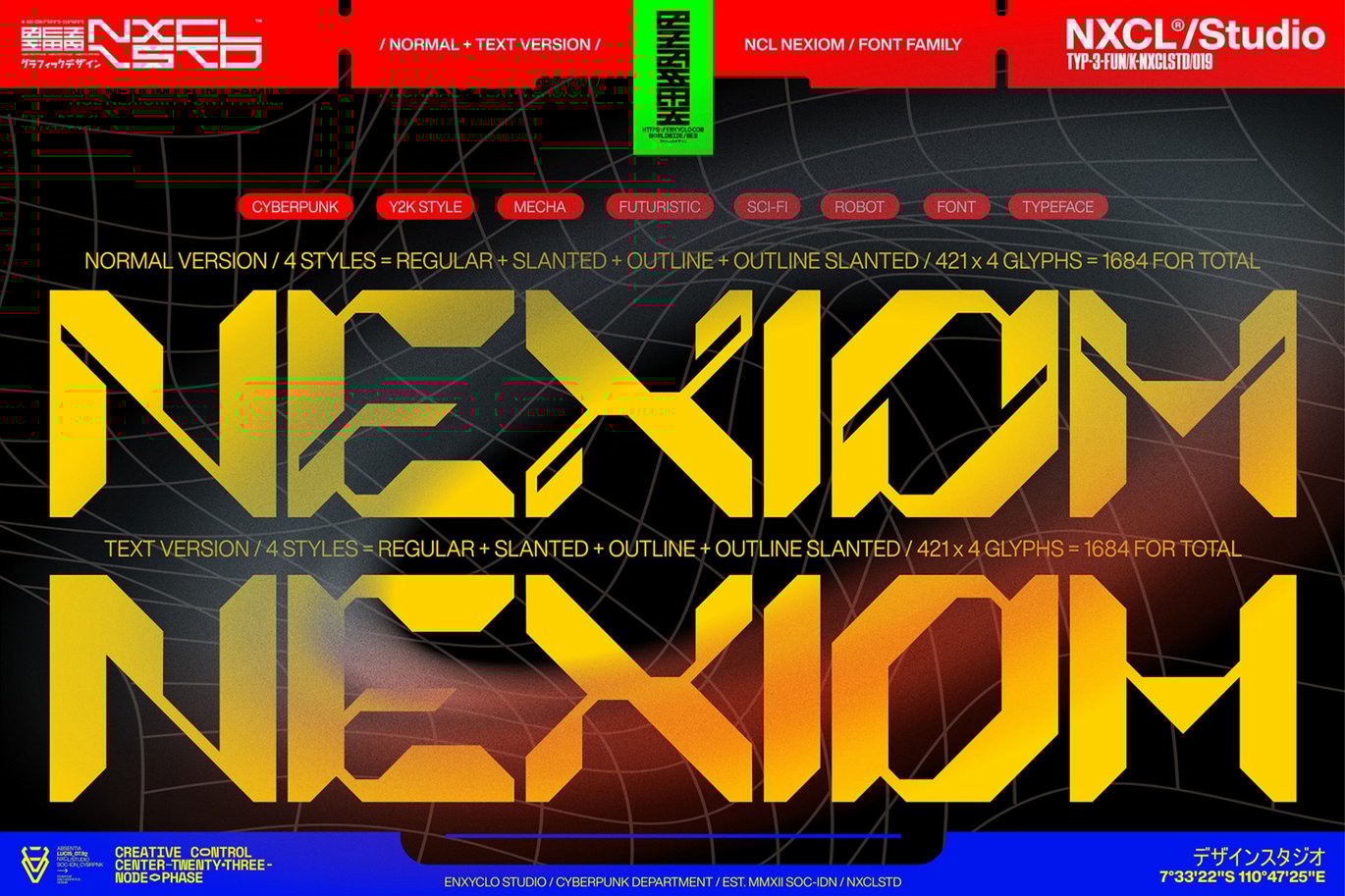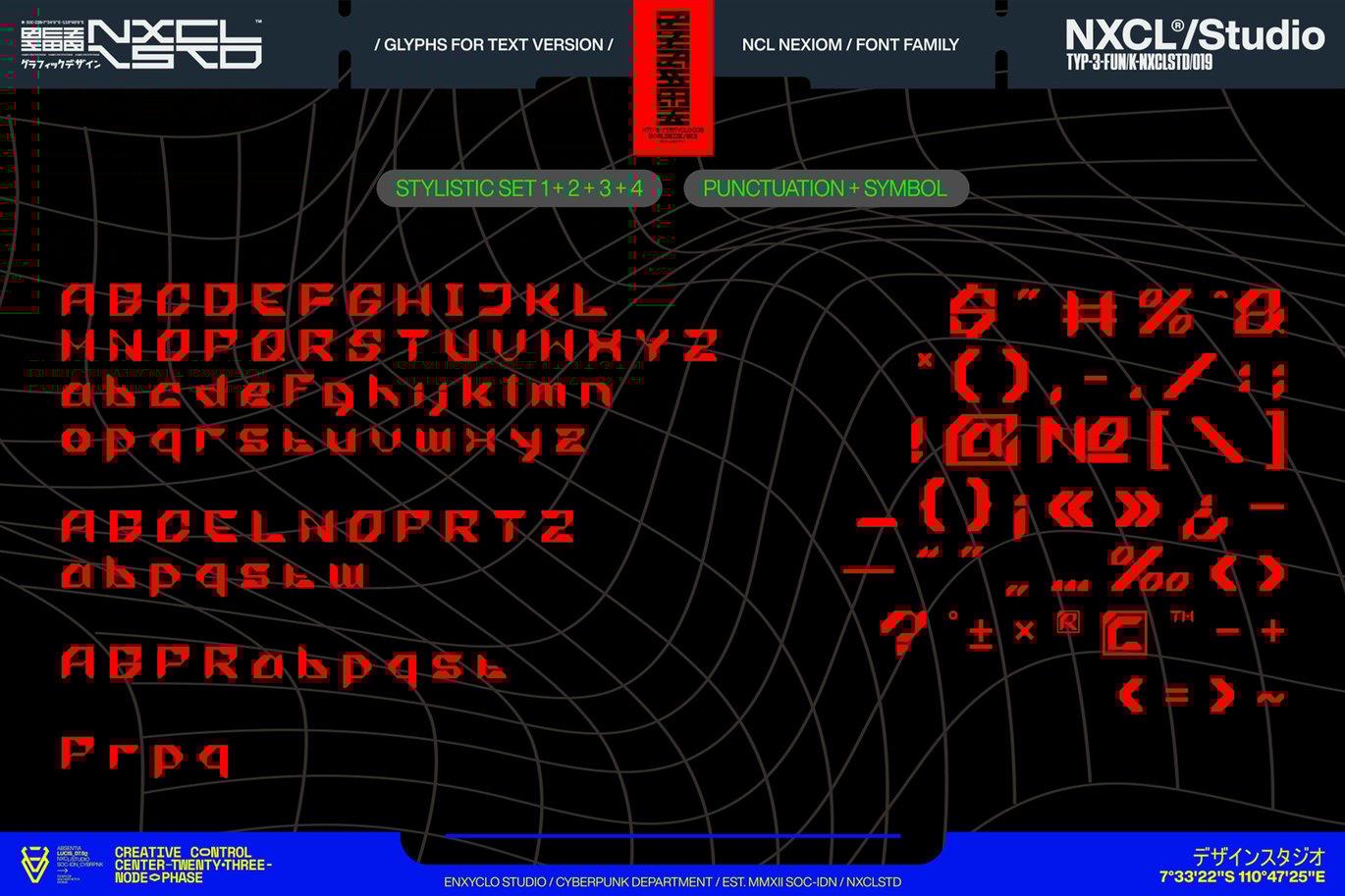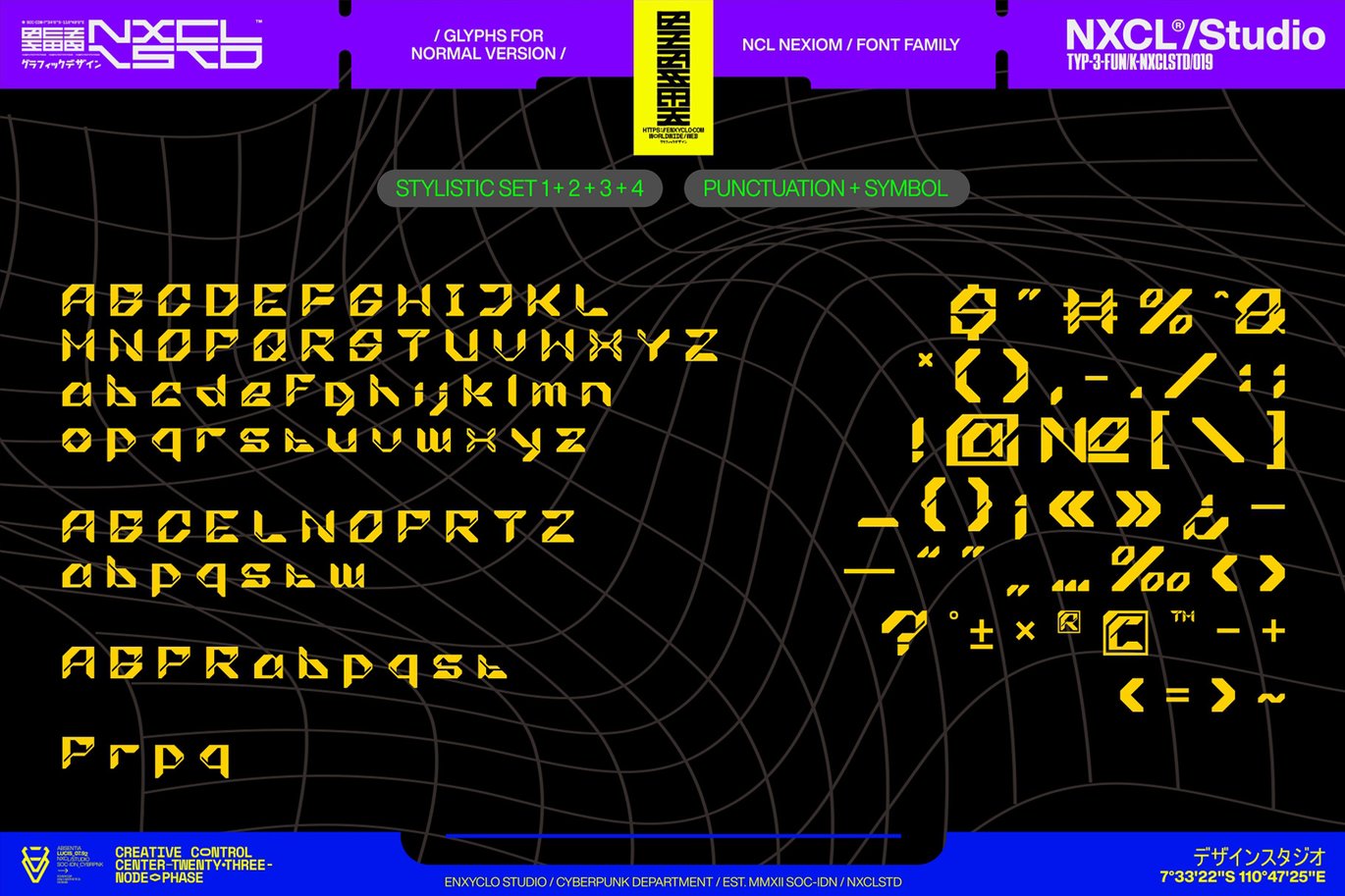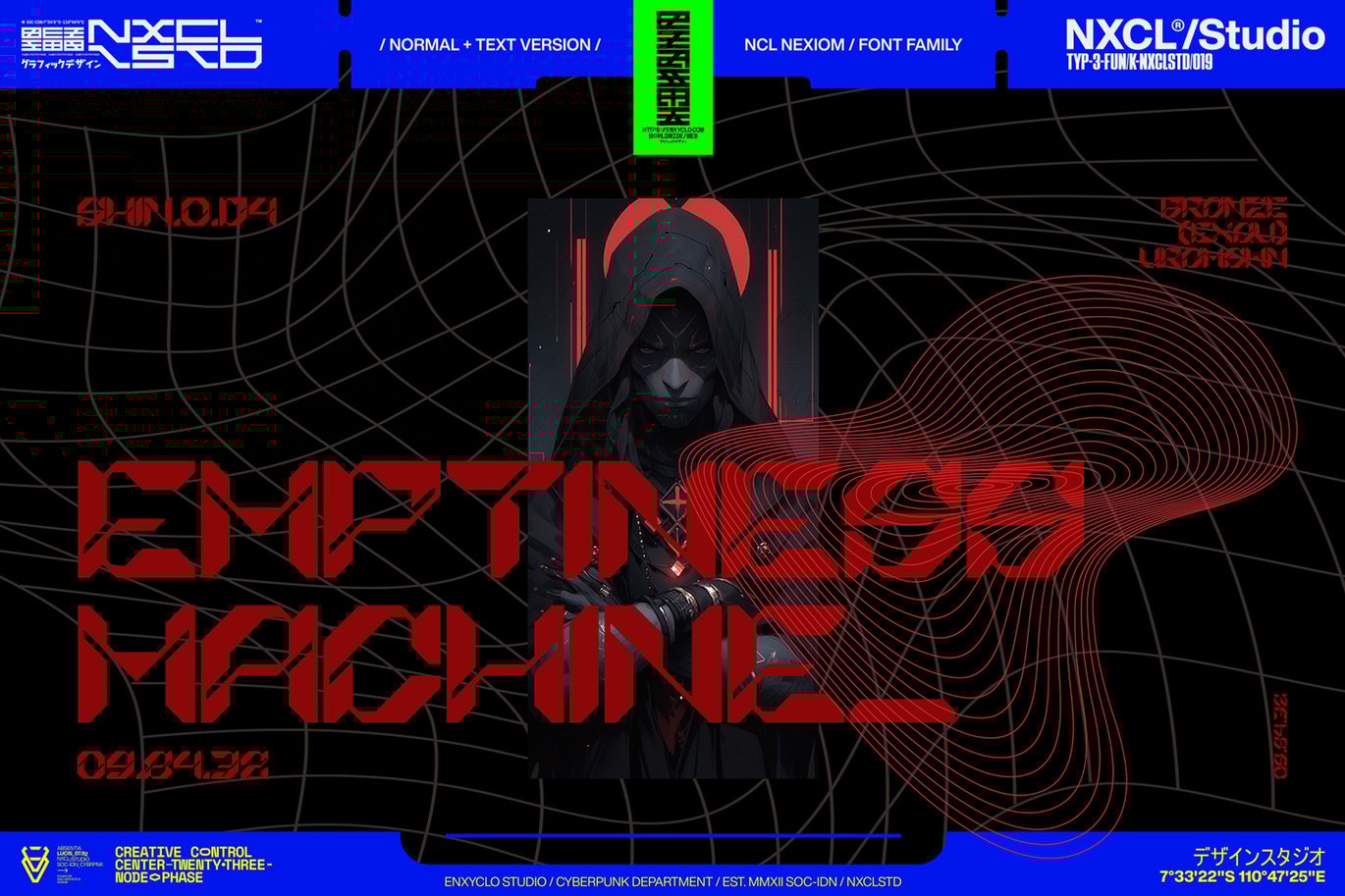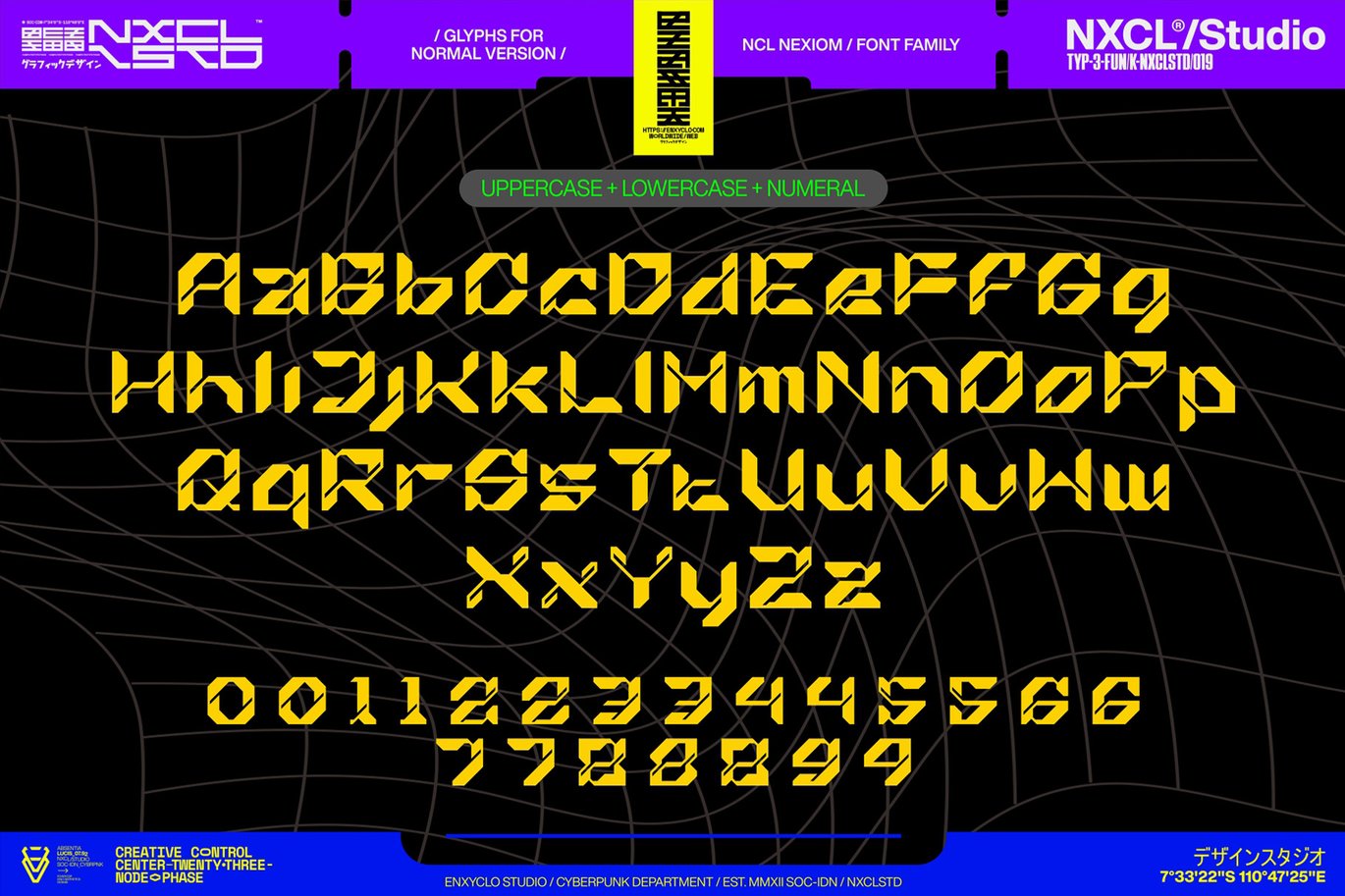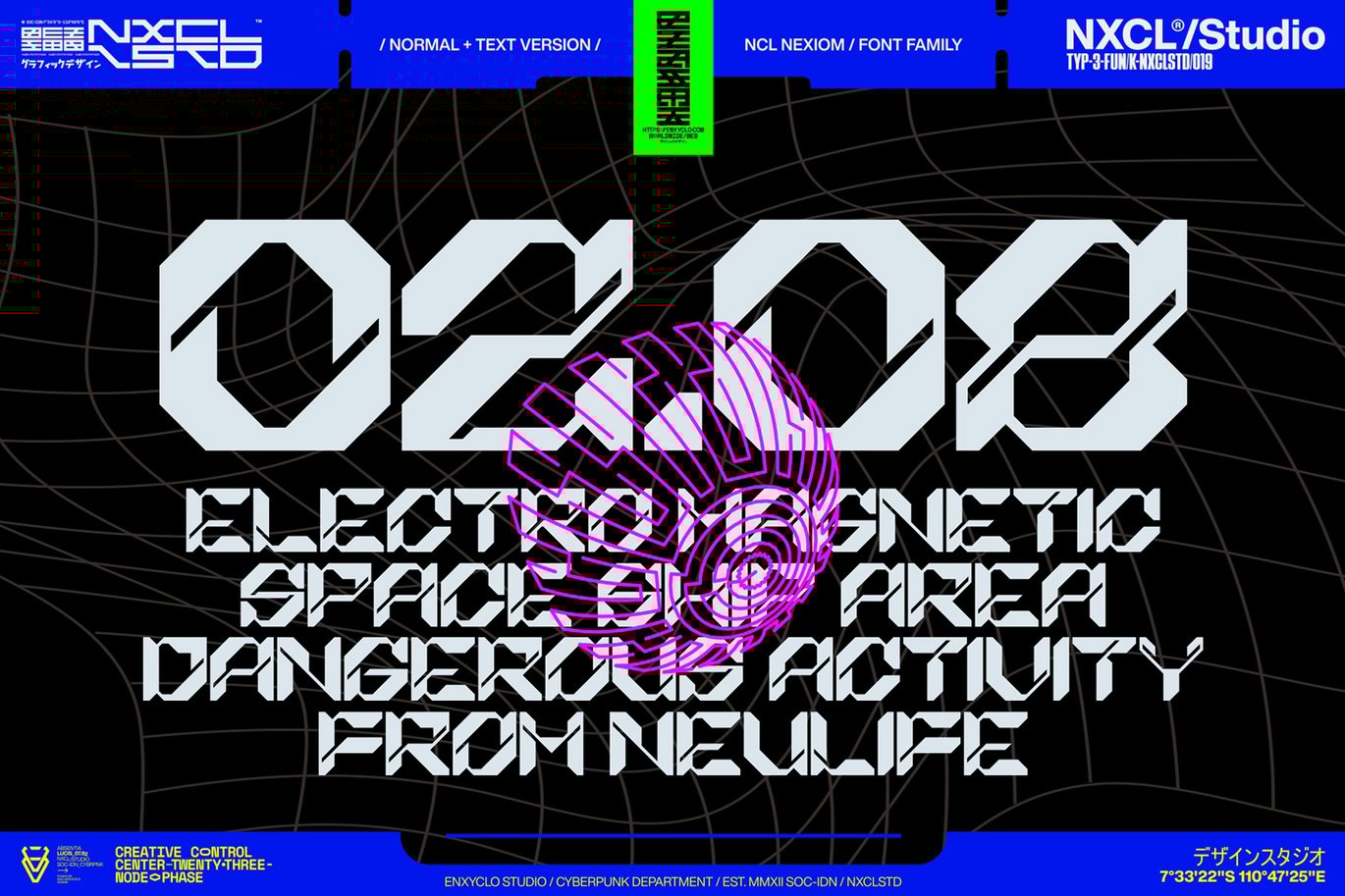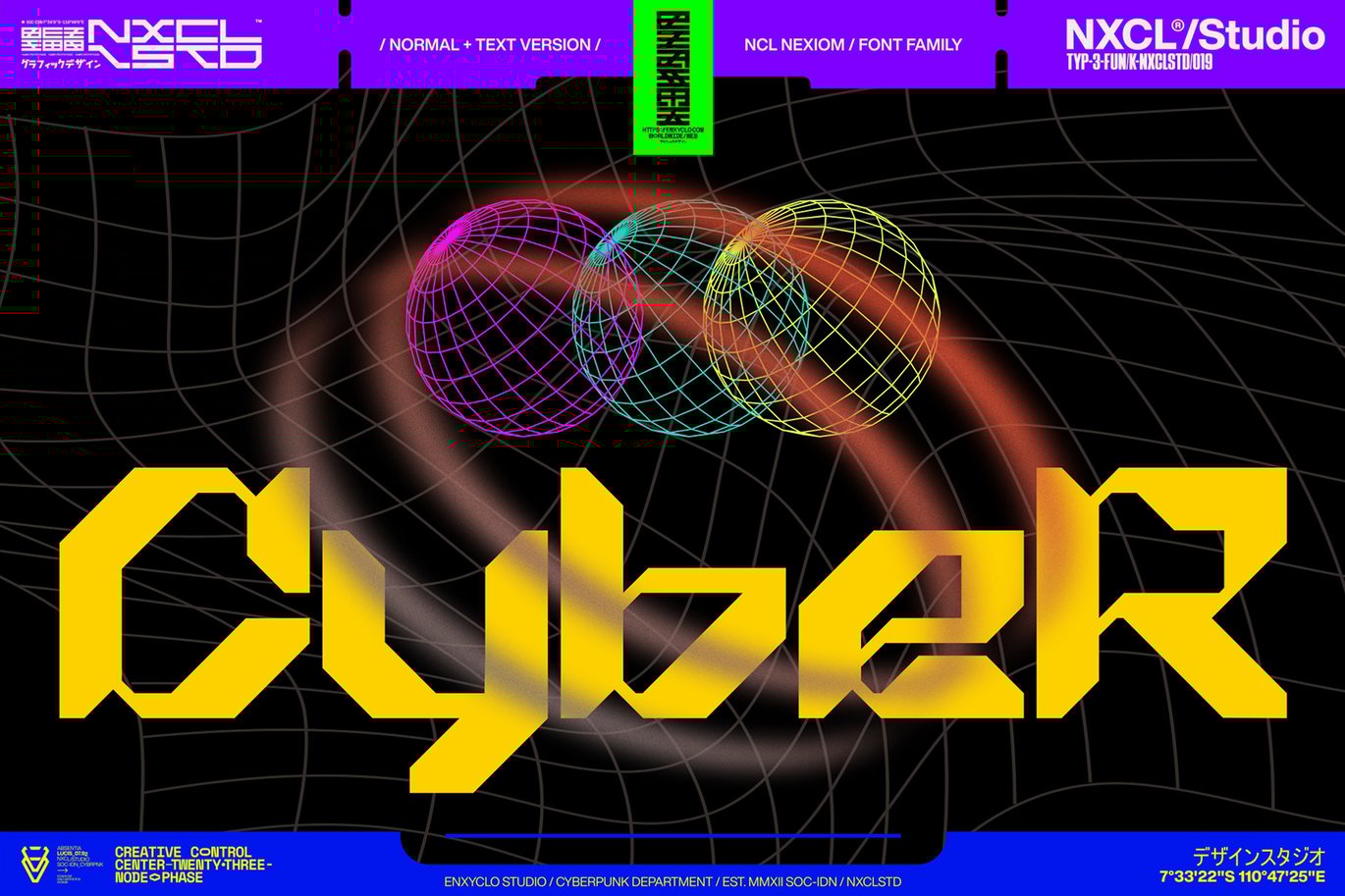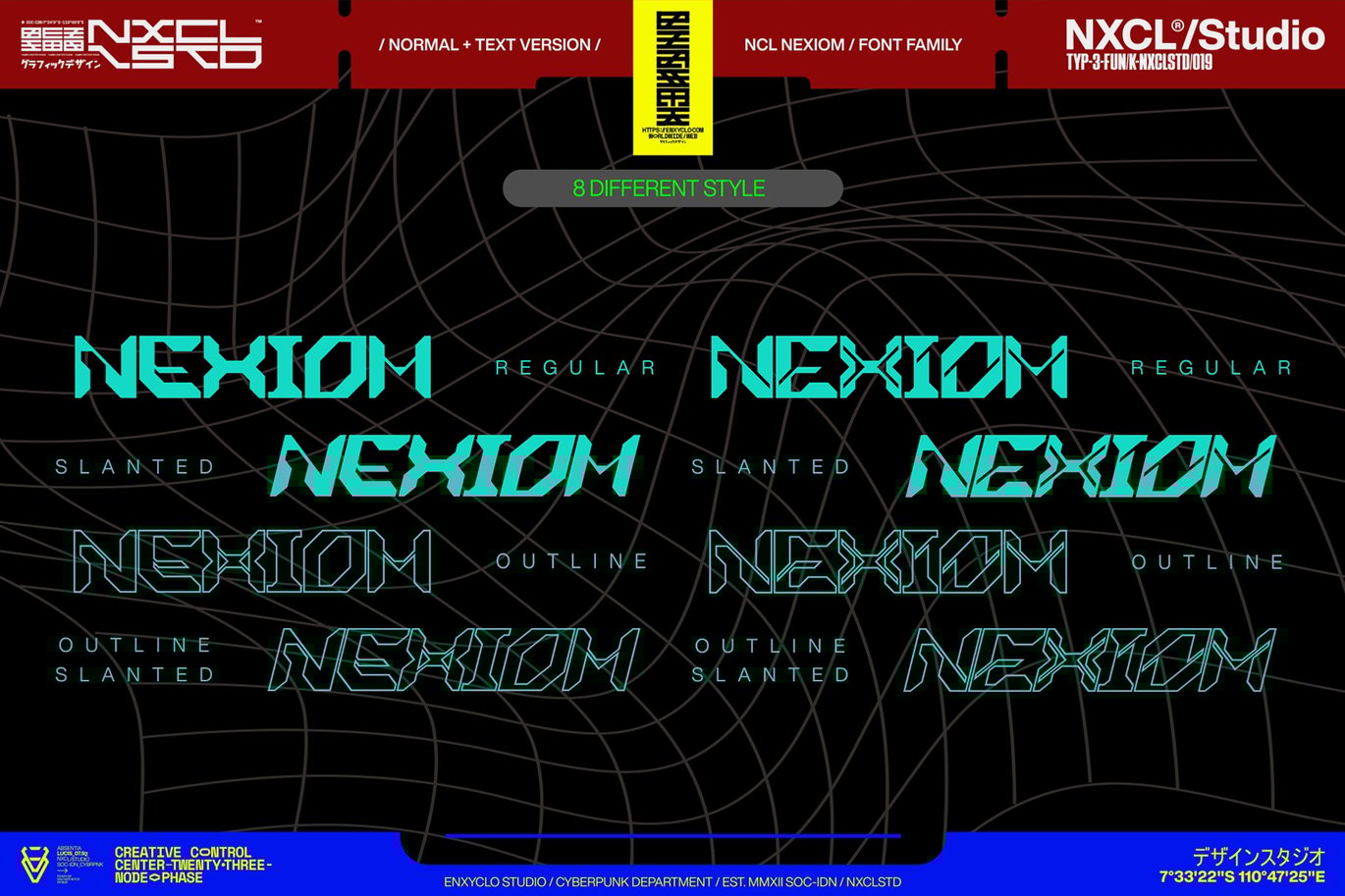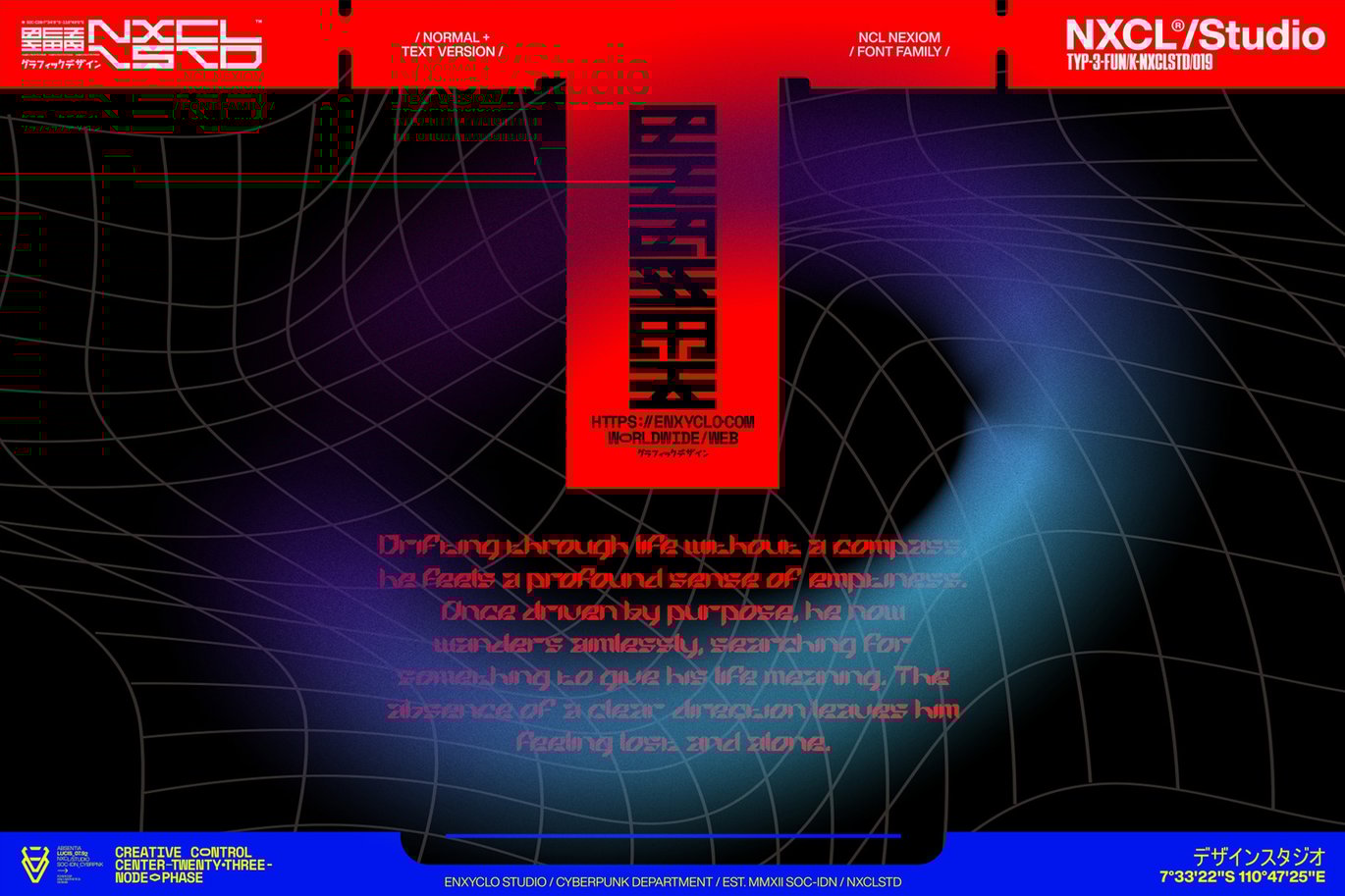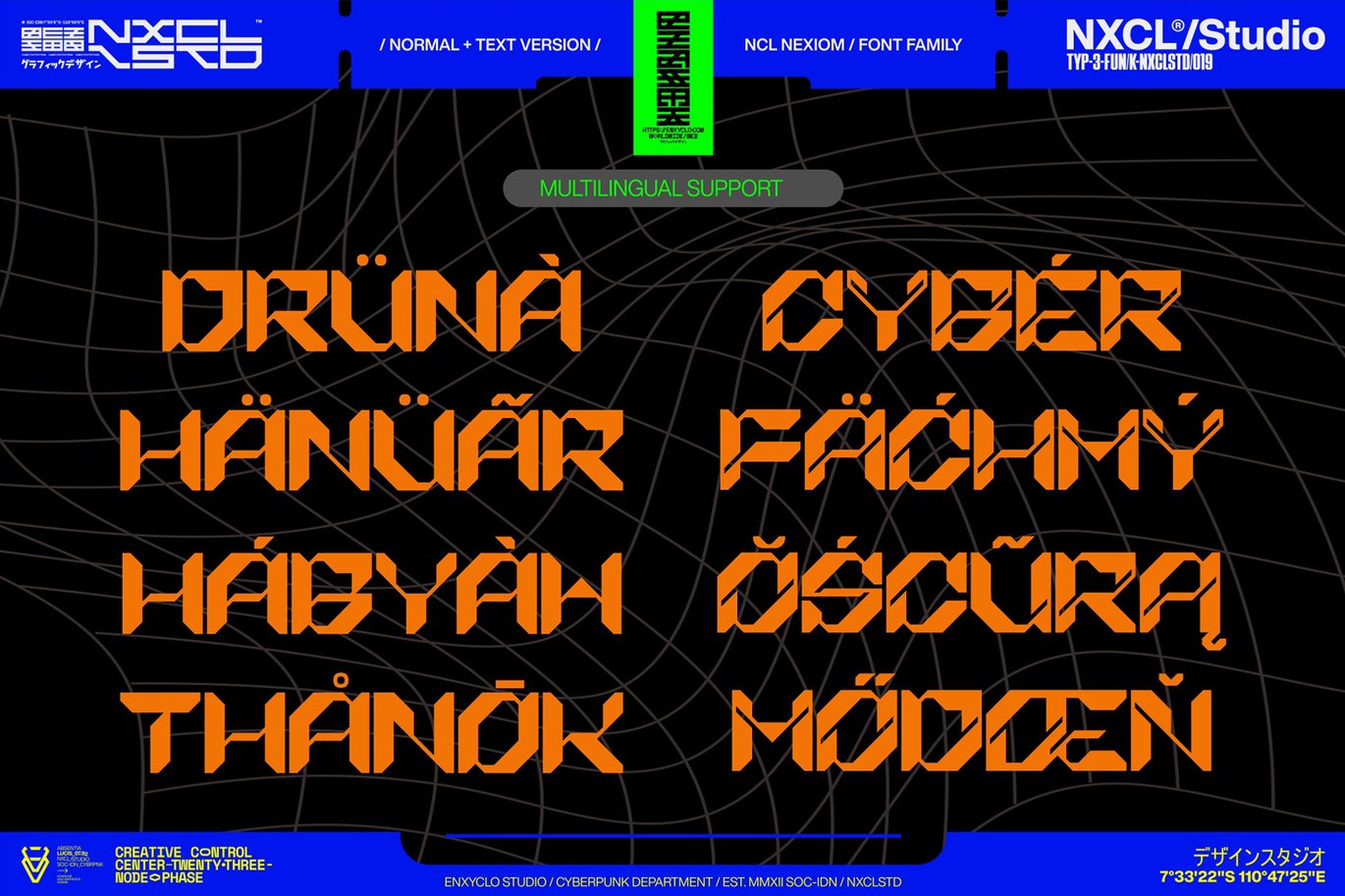
Nexiom Font Family – Y2k Cyberpunk Mecha Font
NCL NEXIOM Font Family is the ultimate futuristic y2k cyberpunk mecha typeface inspired by industrial and mecha-robotics. This stunning and powerful font cuts through the noise, bringing a bold industrial edge to your designs. With its sleek and futuristic design, this font is perfect for any futuristic or cyberpunk design, album artwork, posters, headlines, and logotypes. Add this font to your design toolkit today and unleash the cutting-edge style of this versatile font.
- 2 Family: NCL Nexiom Normal and NCL Nexiom Text
- 4 Styles for Each: Regular, Slanted, Outline, Outline Slanted
- Contains 421 Glyphs for Each Style (3.368 Glyphs for Total)
- Stylistic Set 1-4
- Numeral, Punctuation & Symbols